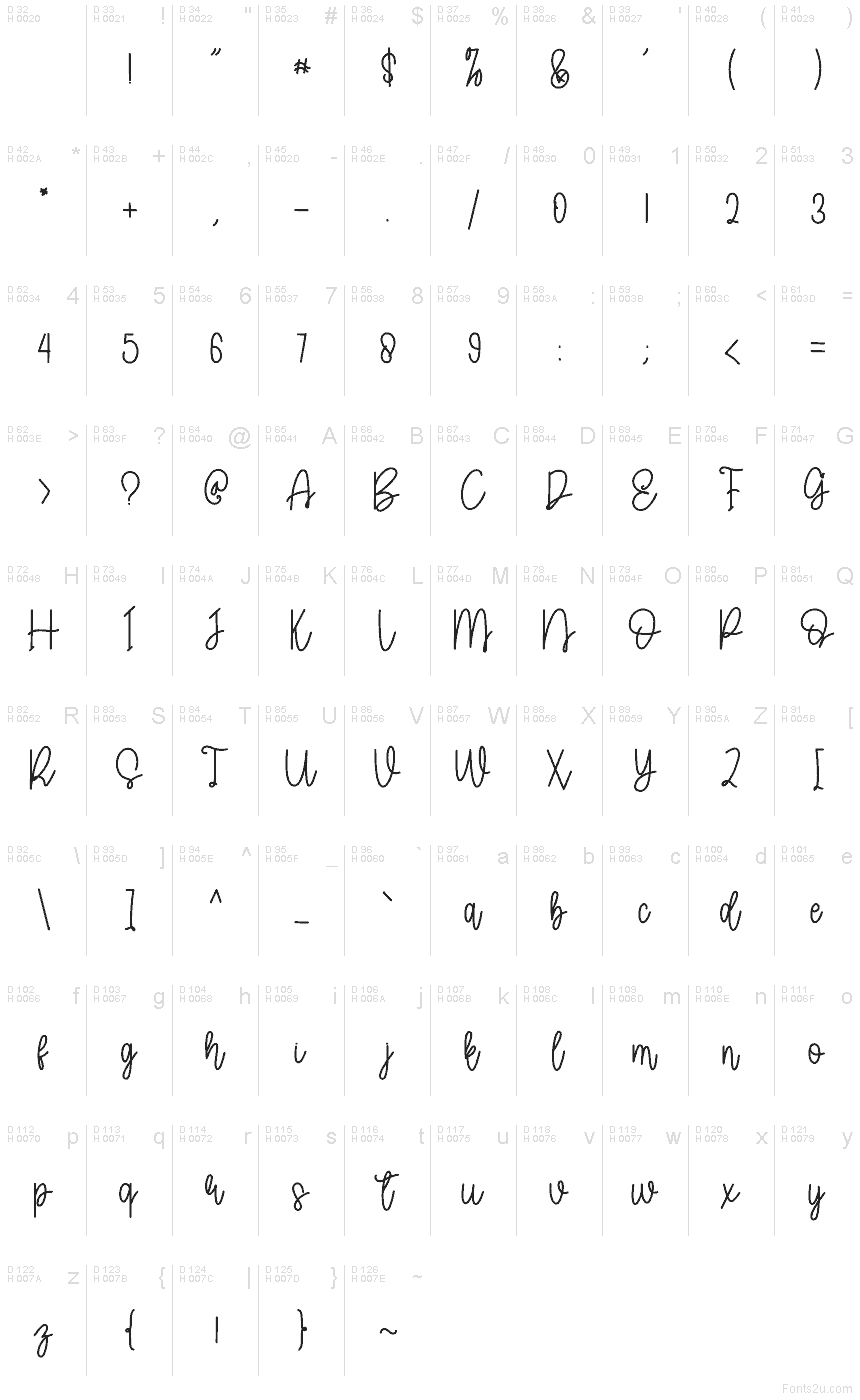
Hello Boho
Hello Boho font by Inermedia Studio is a free handwritten typeface with breezy, looping strokes that feel like a quick note on textured paper. Its tall, narrow letters, generous curls, and relaxed rhythm give it a carefree, bohemian mood without losing legibility, so it reads as friendly rather than messy. The smooth, inky lines feel slightly imperfect in a way that suggests handmade signs, journal headers, or boutique packaging.
Using Hello Boho, you can add an easygoing handwritten voice to wedding invitations, save-the-dates, lifestyle logos, quote posts, Etsy shop banners, product labels, and blog graphics. This free font shines at larger sizes where the loops and curves can breathe, while pairing nicely with a clean sans serif for body copy to keep layouts grounded.